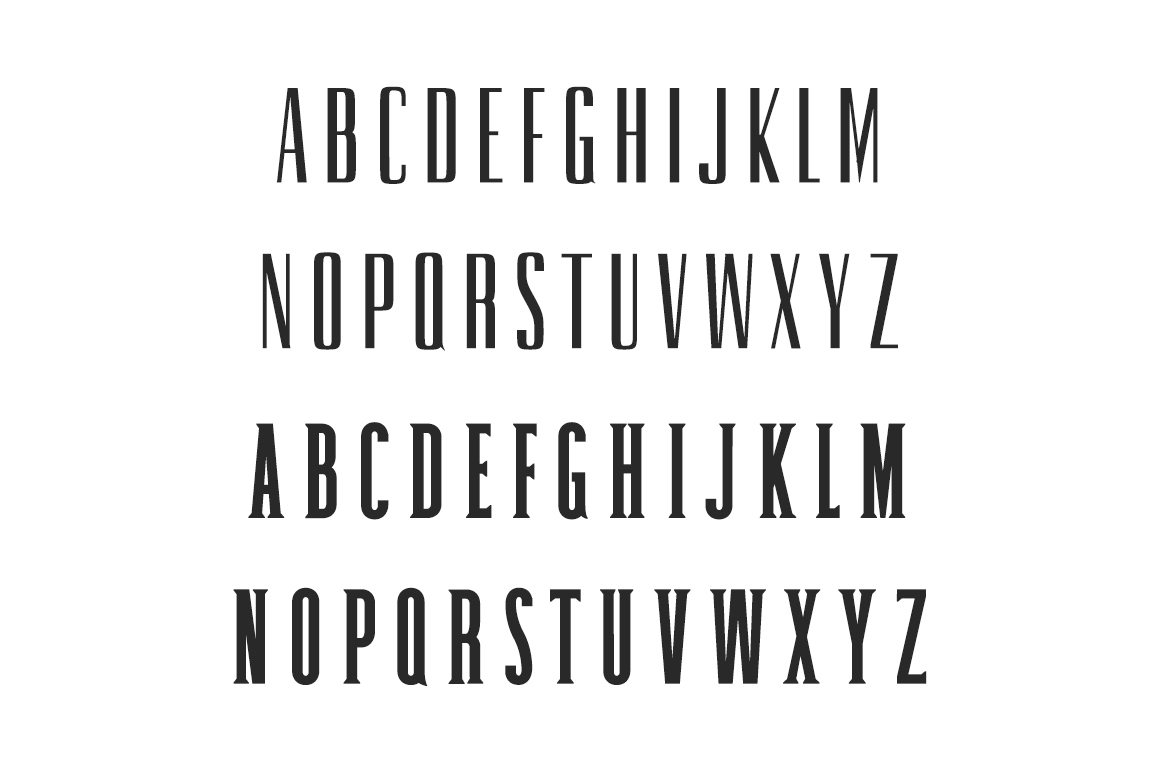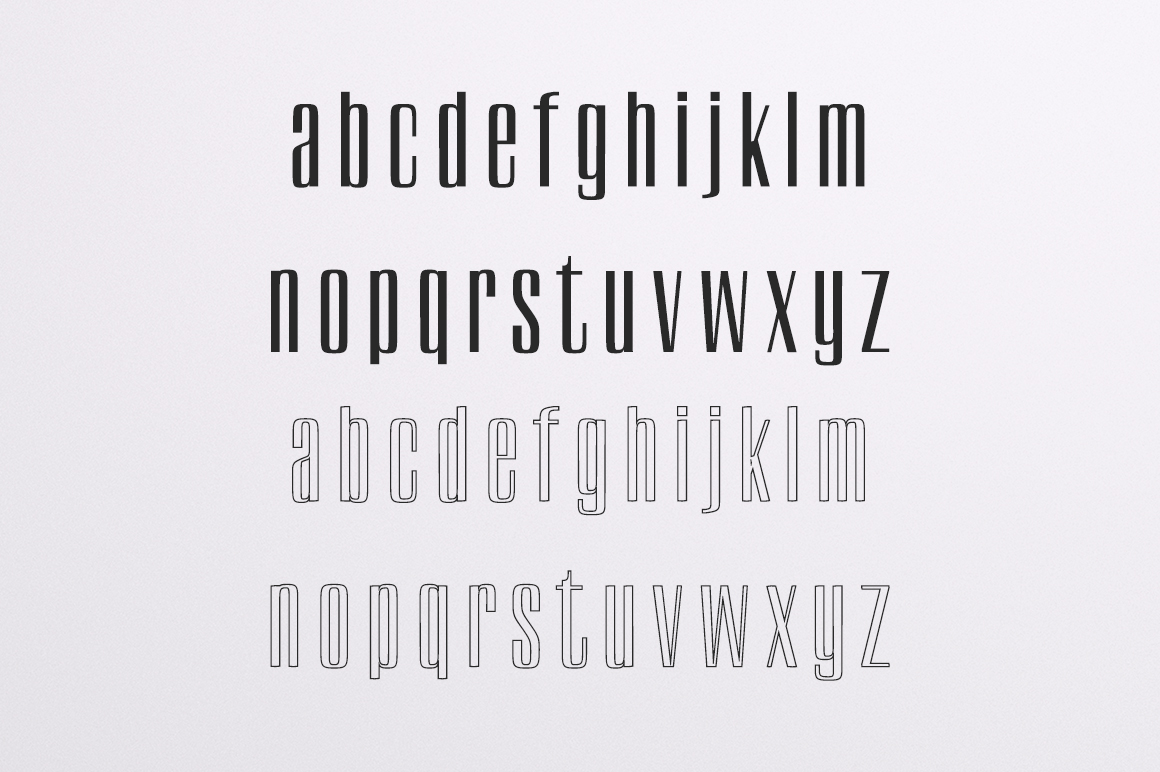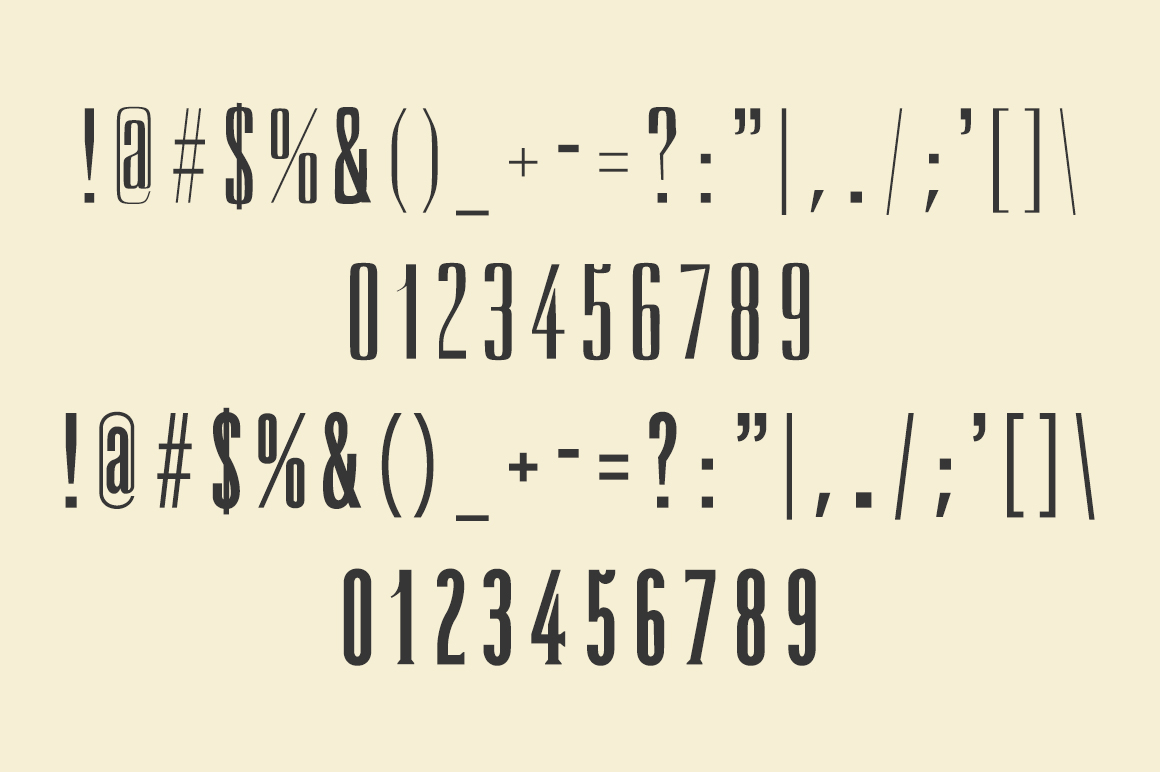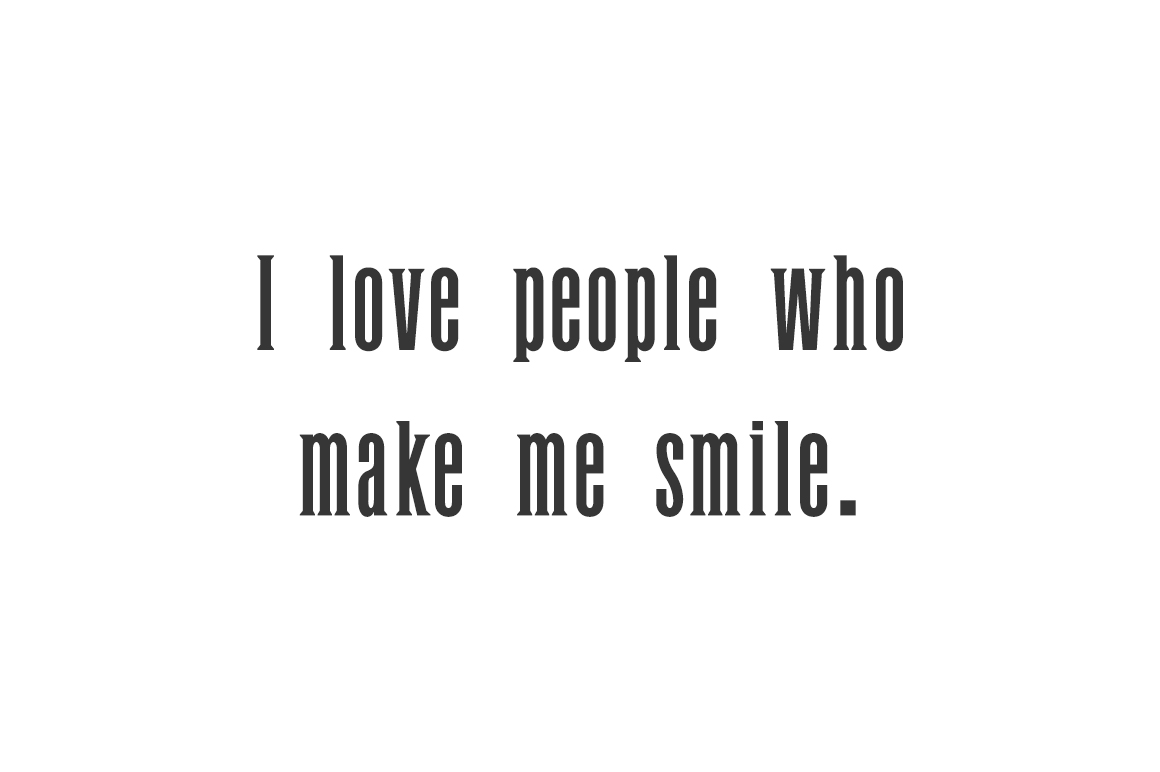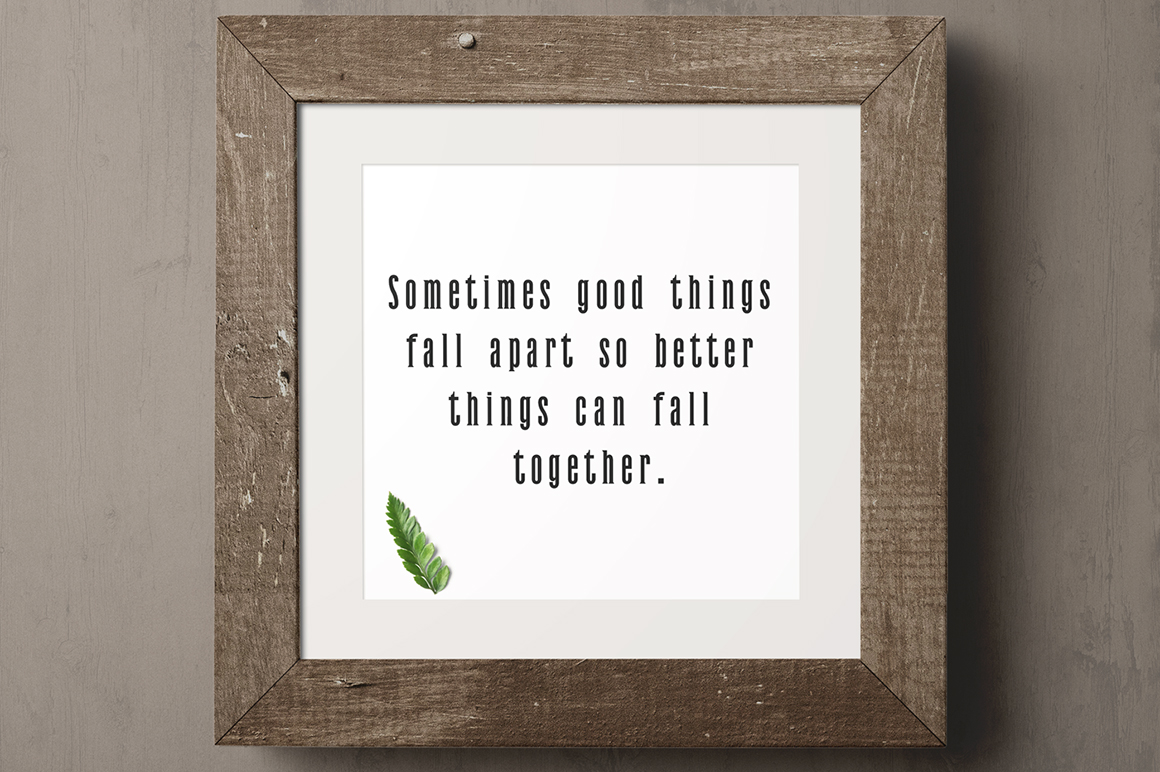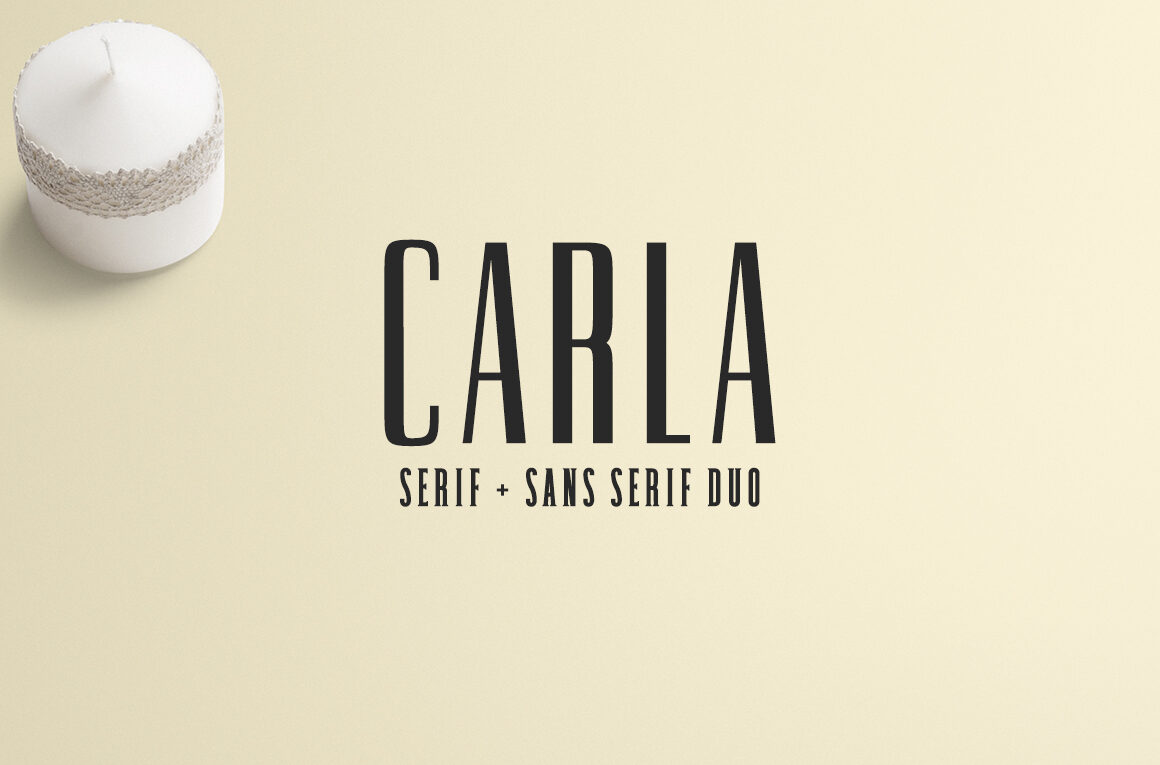
Introducing Carla Duo Font: Elevate Your Designs with Elegance and Modern Charm
In the world of typography, finding the perfect font pair can be a daunting task. However, when it comes to the Carla Duo Font, you’re in for a treat. This exquisite font set, comprising Carla and Dalena, is meticulously designed to complement each other, offering a harmonious blend of elegance and modern charm. Whether you’re a designer, crafty enthusiast, or a business owner looking to elevate your brand’s visual identity, the Carla Duo Font is an excellent choice.
The Perfect Pair: Carla and Dalena
The Carla Duo Font set includes two distinct yet complementary fonts: Carla, a sophisticated serif font, and Dalena, a sleek sans serif font. This pairing allows for a versatile approach to design, enabling you to mix and match the fonts to create visually appealing and engaging content. The synergy between Carla and Dalena lies in their balanced design elements, which ensure that your projects exude professionalism and style.
Variety at Your Fingertips: Different Weights and Styles
One of the standout features of the Carla Duo Font is its range of weights and styles. This variety gives you the flexibility to use the fonts across different mediums and applications, from digital platforms to print materials. Whether you’re designing a luxurious brand logo, an elegant wedding invitation, or a compelling website, the Carla Duo Font set provides you with the tools to create a cohesive and impactful visual identity.
Elegance and Modern Charm for Your Designs
The Carla and Dalena fonts are not just about aesthetics; they’re also about functionality. The clear readability of both fonts, even at smaller sizes, makes them suitable for body text, while their stylish appearance ensures that headlines and titles grab attention. The modern charm infused in these fonts will set your designs apart, giving them a fresh and contemporary look that’s sure to engage your audience.
Why Choose Carla Duo Font?
- Versatility: The combination of serif and sans serif fonts offers endless possibilities for creative expression.
- Elegance: Add a touch of sophistication to your projects with the refined design of Carla and Dalena.
- Modern Appeal: Stay ahead of the curve with fonts that embody modern design principles.
- Readability: Ensure your message is conveyed clearly with fonts that are easy to read across various mediums.
Tips for Using Carla Duo Font
To make the most of the Carla Duo Font, consider the following tips:
- Mix and Match: Use Carla for headings and Dalena for body text, or vice versa, to create visual interest.
- Experiment with Weights: Play with different weights to add hierarchy and emphasis to your designs.
- Pair with Images: Combine the fonts with high-quality images to enhance the overall aesthetic of your project.